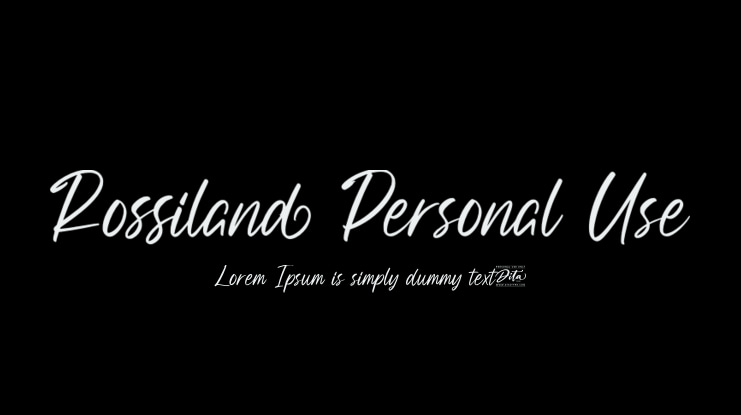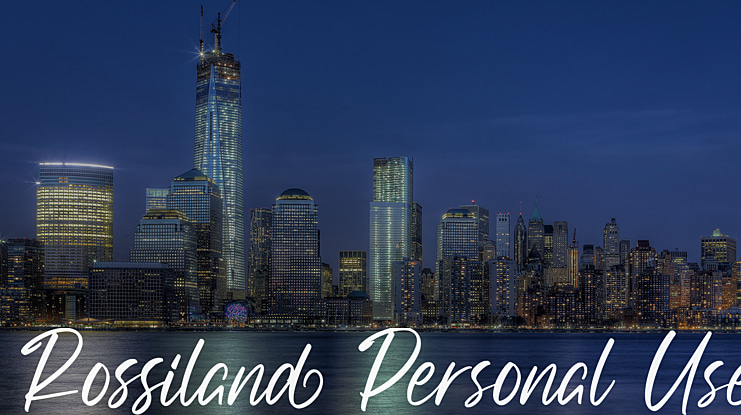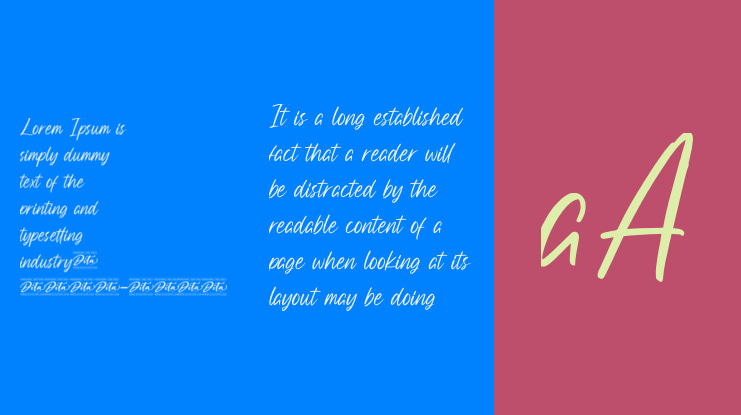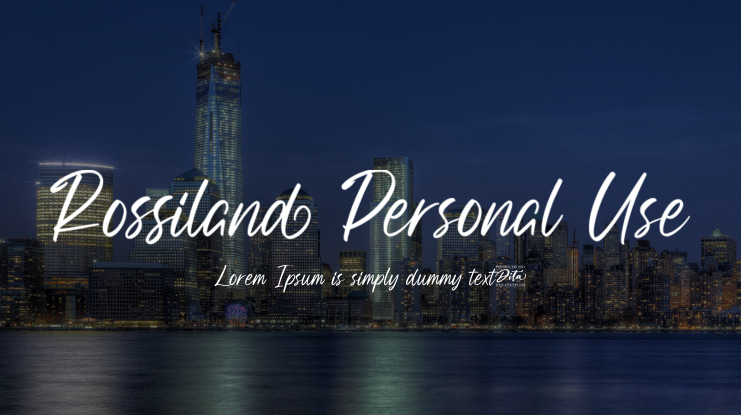
Rossiland Personal Use Font
Fahrul Arjianto
Rossiland is a classy script font. Made for any professional project branding. It is the best for logos, branding and quotes.Every letter has a unique and beautiful touch.